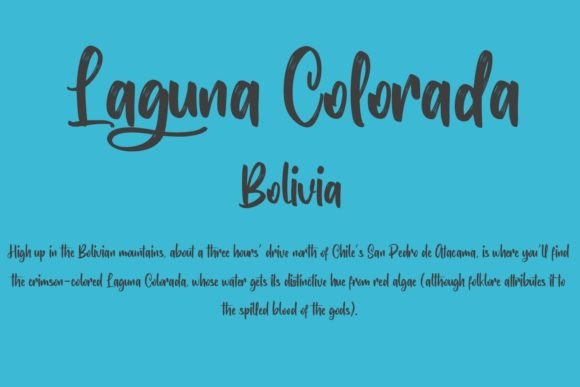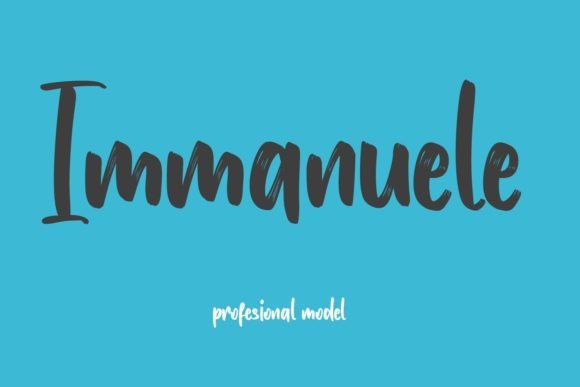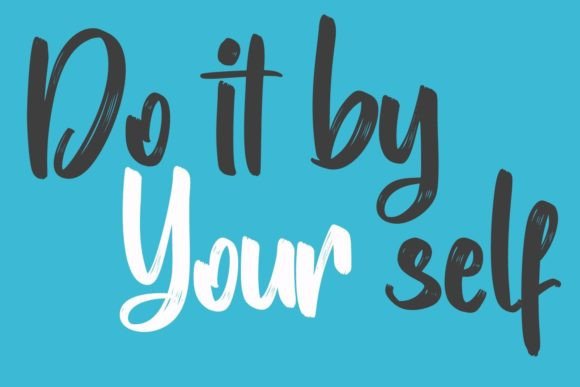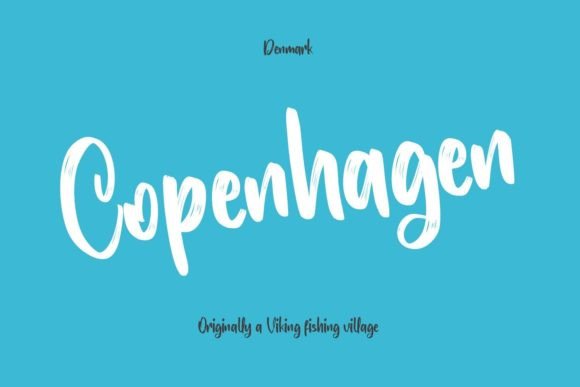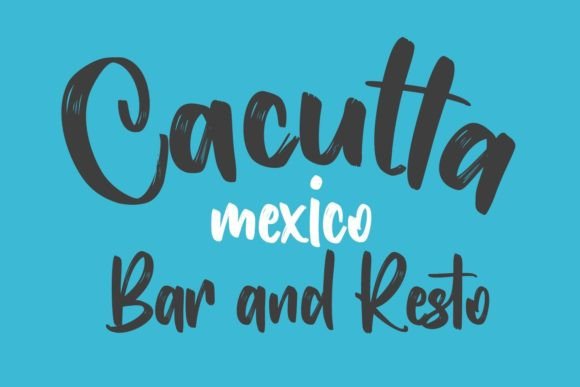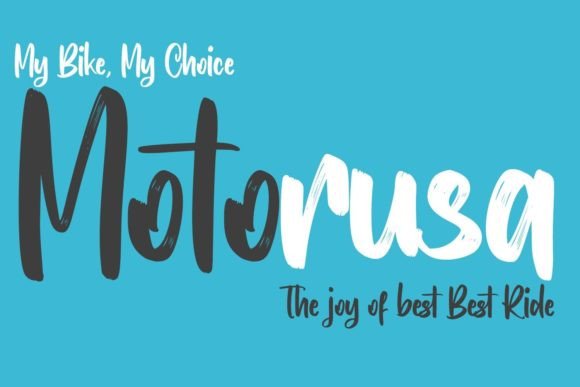
Introducing Gethoreys Font: The Ultimate Brush Script for Creative Projects
Are you on the hunt for a font that adds a touch of personality and flair to your designs? Look no further than Gethoreys Font, a stunning handwritten brush script that’s perfect for a wide range of creative projects. With its bold brush strokes, fun character, and versatile features, Gethoreys is sure to become your go-to font for making stunning work.
What Makes Gethoreys Font So Special?
Gethoreys is a fancy handwritten brush font that’s designed to bring a touch of elegance and whimsy to your designs. Its bold brush strokes give it a confident and expressive feel, while its fun character and ligatures add a playful touch. Whether you’re working on a logo design, social media graphics, movie titles, book titles, or even long text letters, Gethoreys is the perfect choice.
Key Features of Gethoreys Font
- Bold Brush Strokes: Gethoreys features bold, expressive brush strokes that give it a confident and dynamic feel.
- Fun Character: The font has a playful and fun character that’s perfect for adding personality to your designs.
- Ligatures and Stylistic Alternates: Gethoreys includes ligatures and stylistic alternates, allowing you to add an extra touch of elegance and sophistication to your designs.
- Versatile: This font is perfect for a wide range of projects, from logo design and social media graphics to movie titles, book titles, and long text letters.
Why Choose Gethoreys Font?
So why choose Gethoreys font for your next project? Here are just a few reasons why designers and crafters love this font:
- Unique and Eye-Catching: Gethoreys is a one-of-a-kind font that’s sure to grab attention and make your designs stand out.
- Easy to Read: Despite its bold and expressive feel, Gethoreys is easy to read, even at small sizes.
- Pairs Well with Other Fonts: This font pairs perfectly with sans serif and serif fonts, making it a great choice for secondary text and headings.
- High-Quality: Gethoreys is a high-quality font that’s designed to deliver exceptional results, whether you’re working on print or digital projects.
How to Use Gethoreys Font
Ready to start making stunning work with Gethoreys font? Here are a few tips for getting the most out of this amazing font:
- Use it as a Headline Font: Gethoreys is perfect for headlines and titles, where its bold brush strokes and fun character can really shine.
- Pair it with a Sans Serif Font: Try pairing Gethoreys with a sans serif font for a classic and sophisticated look.
- Experiment with Ligatures and Alternates: Don’t be afraid to experiment with the ligatures and stylistic alternates in Gethoreys to add an extra touch of elegance and sophistication to your designs.
In conclusion, Gethoreys font is an amazing handwritten brush script that’s perfect for designers and crafters looking to add a touch of personality and flair to their projects. With its bold brush strokes, fun character, and versatile features, Gethoreys is sure to become your go-to font for making stunning work. So why wait? Download Gethoreys font today and start creating!